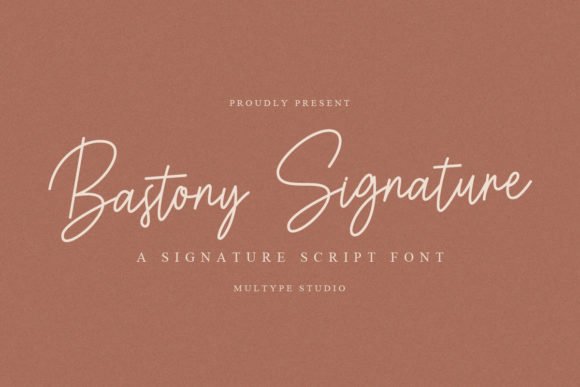
Imagine a world where words dance with grace and elegance, painting a tableau of emotions that captivate the senses. Enter Bastony Signature Font, a font so exquisite, it transforms your designs into masterpieces. Let your imagination roam free as you immerse yourself in a world of creativity, where letters become art and every word tells a story.
Bastony Signature is not just a font; it's an experience. Its fluid strokes, reminiscent of a gentle breeze, evoke a sense of serenity and sophistication. Each letter, meticulously crafted with a delicate touch, intertwines harmoniously, creating a visual symphony that dances before your eyes. The thin, graceful lines lend an air of lightness and elegance, making your designs appear as though they've been kissed by an angel's breath.
With Bastony Signature Font, you have the power to transform the ordinary into the extraordinary. Let your designs bloom with a newfound vibrancy, as this font breathes life into every character. Watch in awe as your creations take on a personality of their own, captivating audiences with their undeniable charm. Be it a logo that commands attention, a wedding invitation that exudes romance, or a social media post that sparks engagement, Bastony Signature Font is your perfect companion.
Step into a realm where creativity knows no bounds, where words become living entities, and emotions find their voice. Embrace Bastony Signature Font, and unlock a world of endless possibilities. Let your designs soar to new heights, leaving an indelible mark on the hearts and minds of all who behold them.